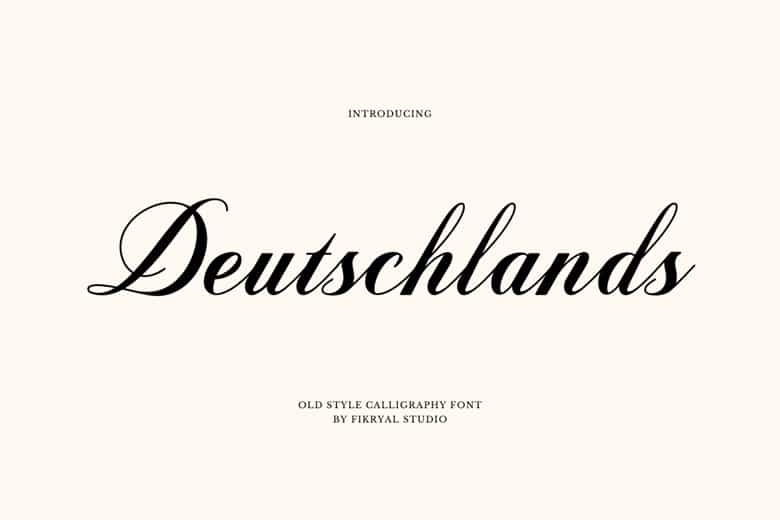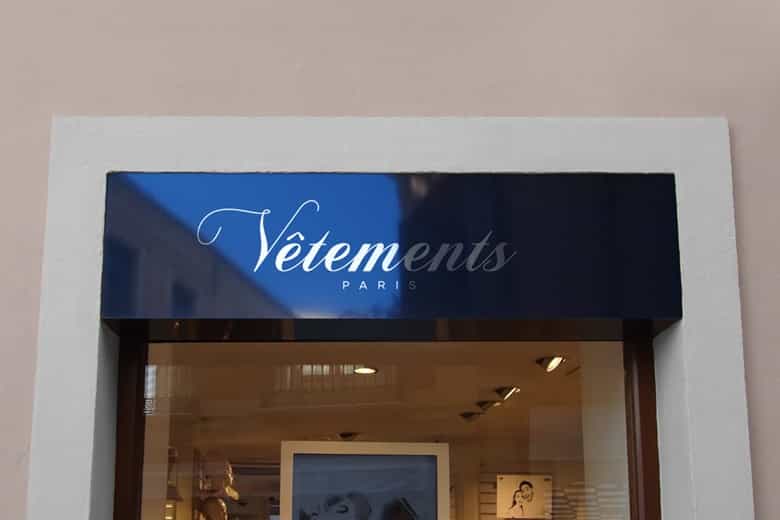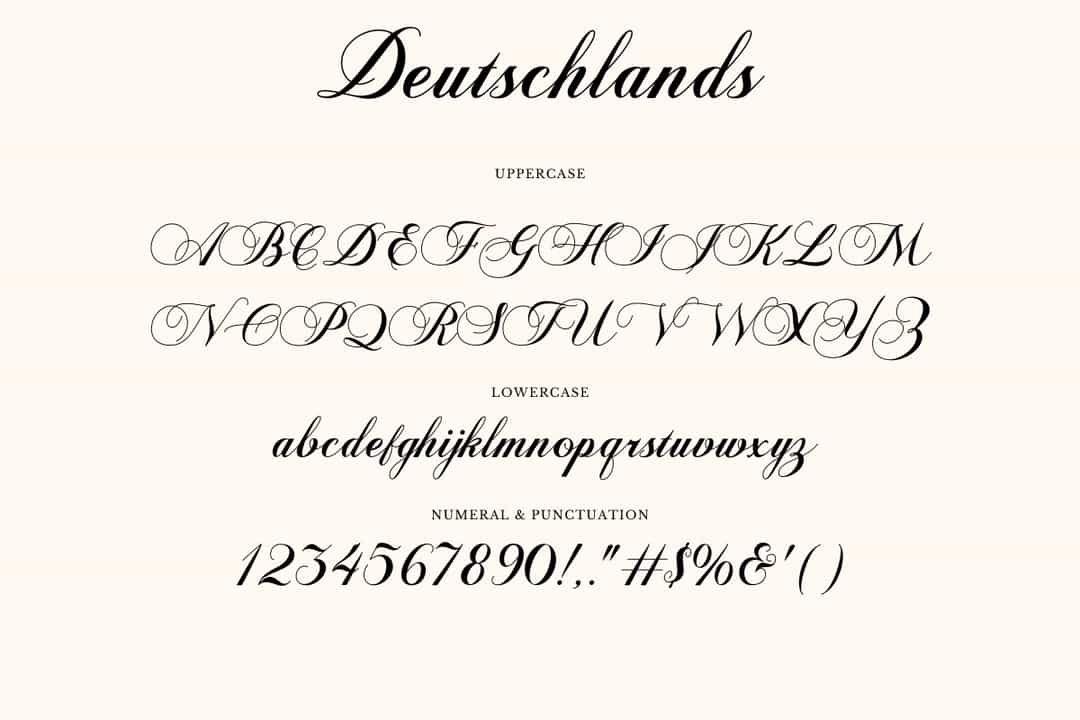
Deutschlands is a calligraphy script font. This font is practiced in the modern style, it is informal, and will be relevant for different designs that you require. You can use it for Logos, Branding, Titles, Social Media Posts, Advertisements, Product Packaging, Product Designs, Labels, Photography, Special Events, Magazines, Web Design among others.